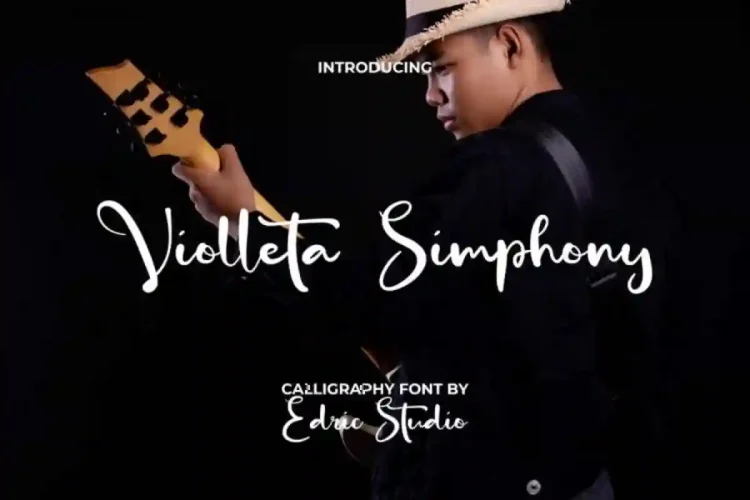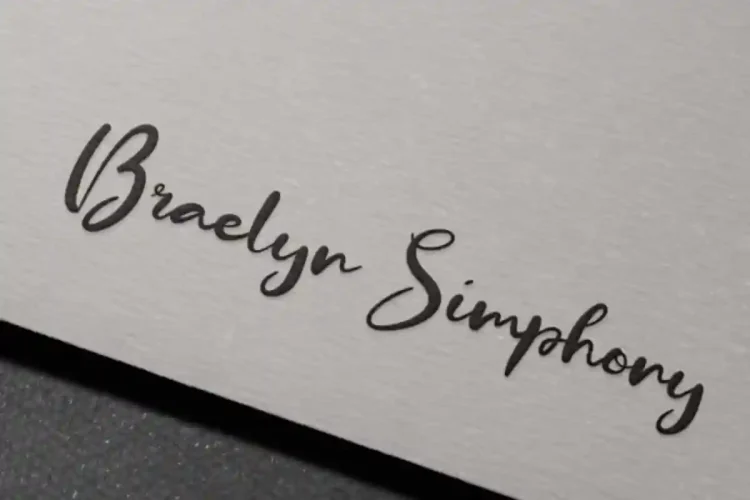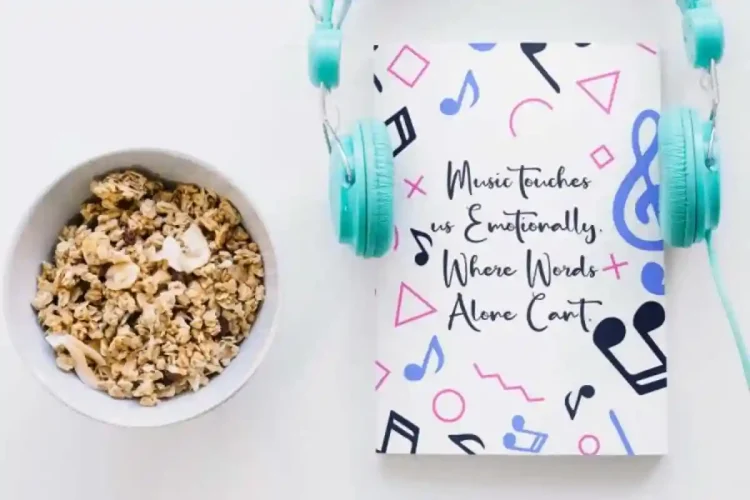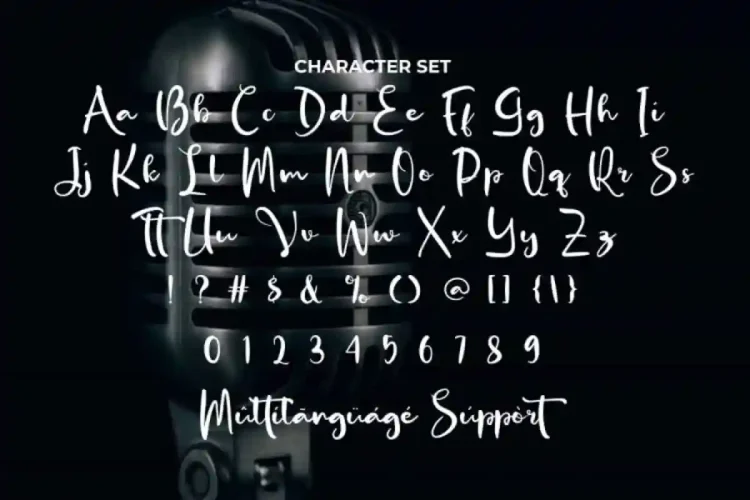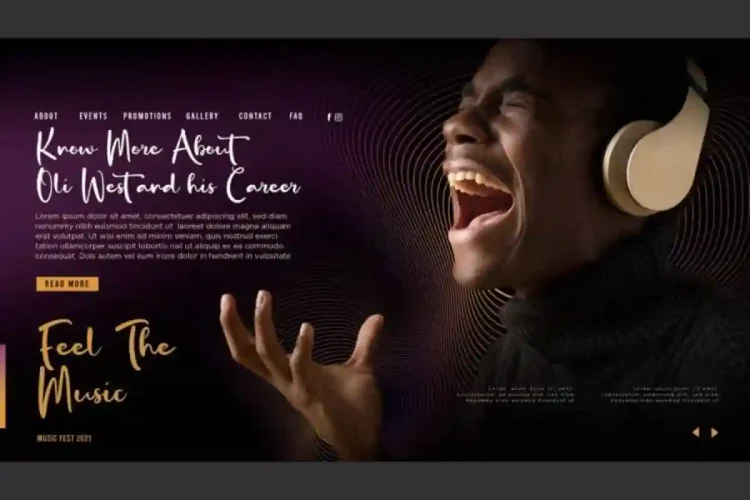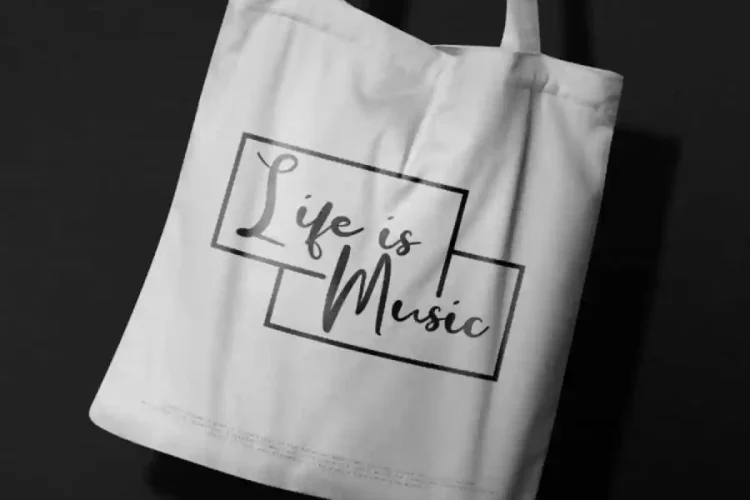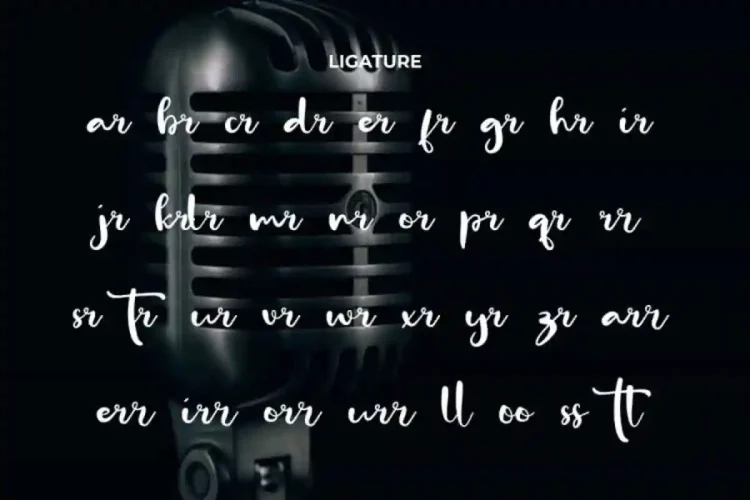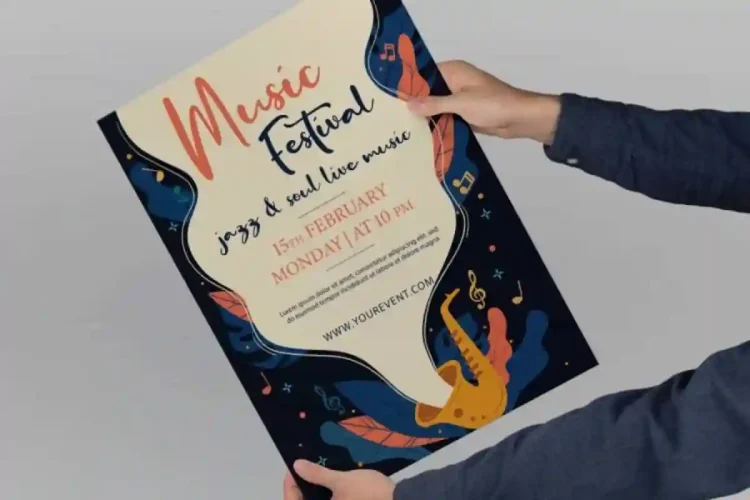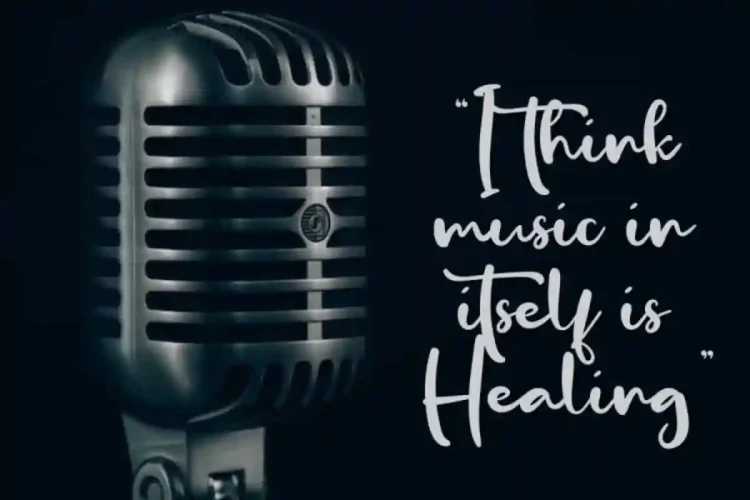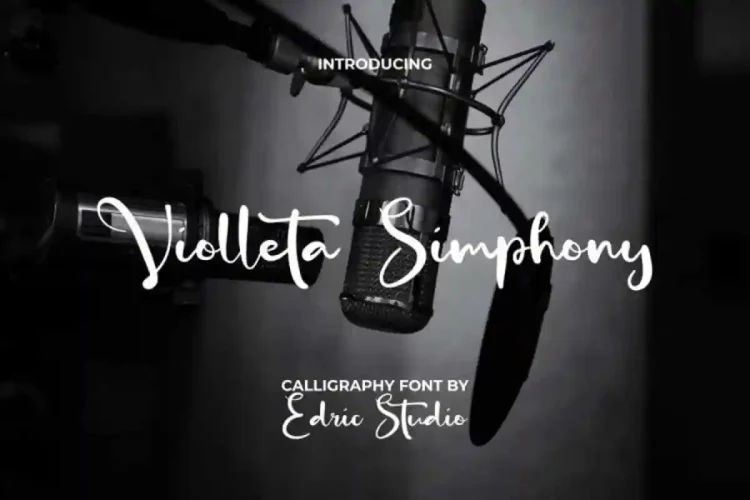
Violleta Simphony Calligraphy Font is a calligraphy script font with combination of thin and big lines. This font can provide instant beauty, making it suitable for many industries, such as accessories, art, event or wedding organizer, fashion, handicraft, photography, printing, publishing, and many more!
Violleta Simphony Calligraphy Font comes with a full set of Uppercase and Lowercase Basic Characters, Number, a large range of Punctuation, Symbol, and Ligature. It has a stunning characters set, perfectly managed with well spaced and kerning. Violleta Simphony Font will be great for any projects (with extended license) including: brand image, brochure, cover, invitation, label, poster, quote, screen print, signage, stationery, title, website, etc.
Violleta Simphony Font is a playful typeface with unique decoration in each character. It’s tested to work well in the Adobe Apps (Illustrator, Adobe InDesign, Adobe Photoshop) even work on Microsoft Word. PUA Encode Characters means you can access all characters easily – Fully accessible without additional design software.